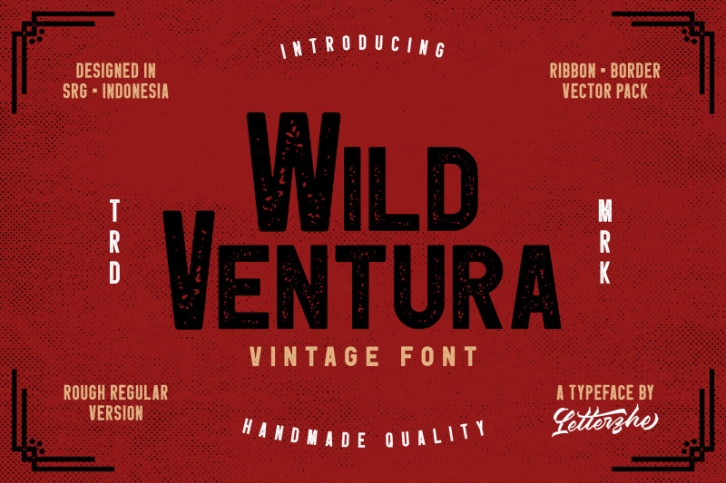
Wild Ventura is a sans typeface with a unique vintage aesthetic. While it has charming retro characteristics, it still maintains a timeless and universal appeal. Get inspired by this beautiful font and add a touch of authenticity to any design project. It's support for International language.